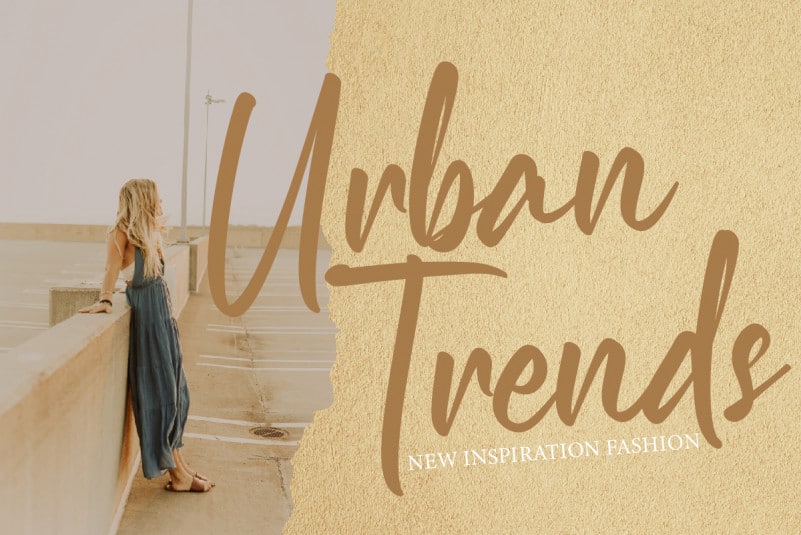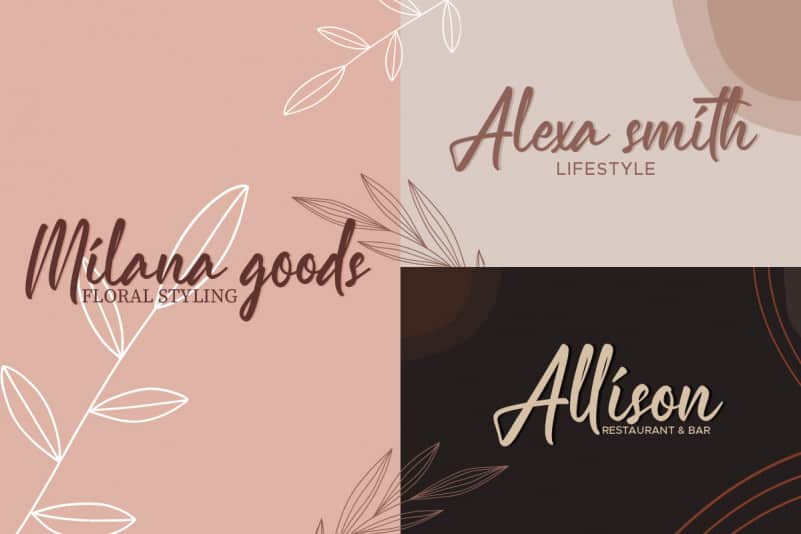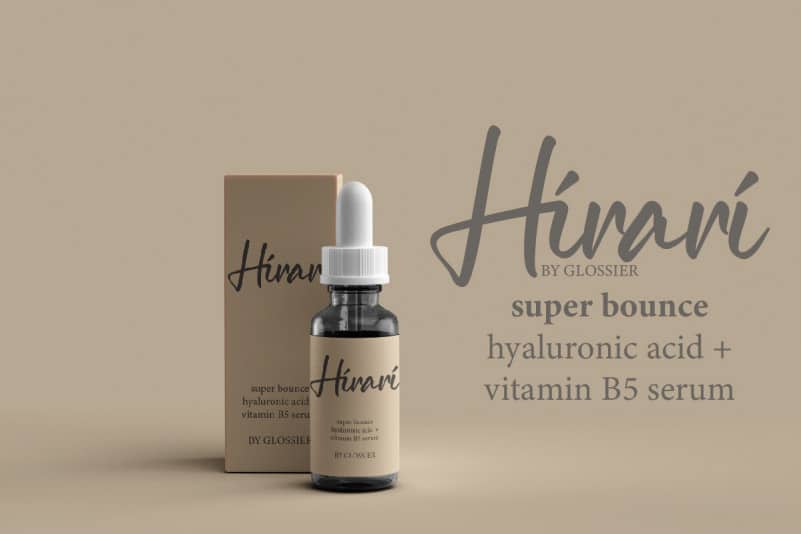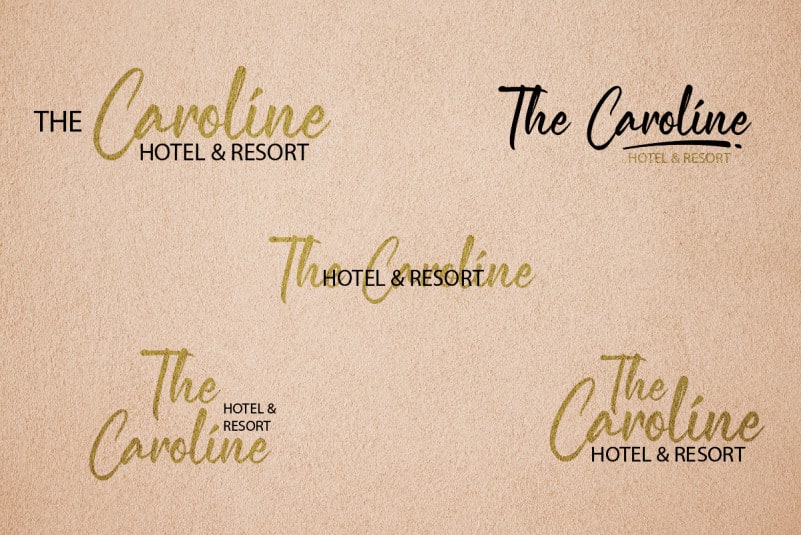
Neadless Script Font
Neadless Script Font is a bold brush font with strong characters yet stunning look. Neadless will be great for headlines, advertising, product, packaging, promotion, tittle etc. This font is crafted carefully in every its single letter so it is meant to emulate natural brush lettering with perfect for head-turning statements and eye-catching look!
Neadless Script Font includes full set of Uppercase and Lowercase Basic Characters, Numerals and Punctuation. Also it contains ligatures to make it flowless set font characters to perfectly make awesome look that add more aesthetic to perfect your extraordinary project.